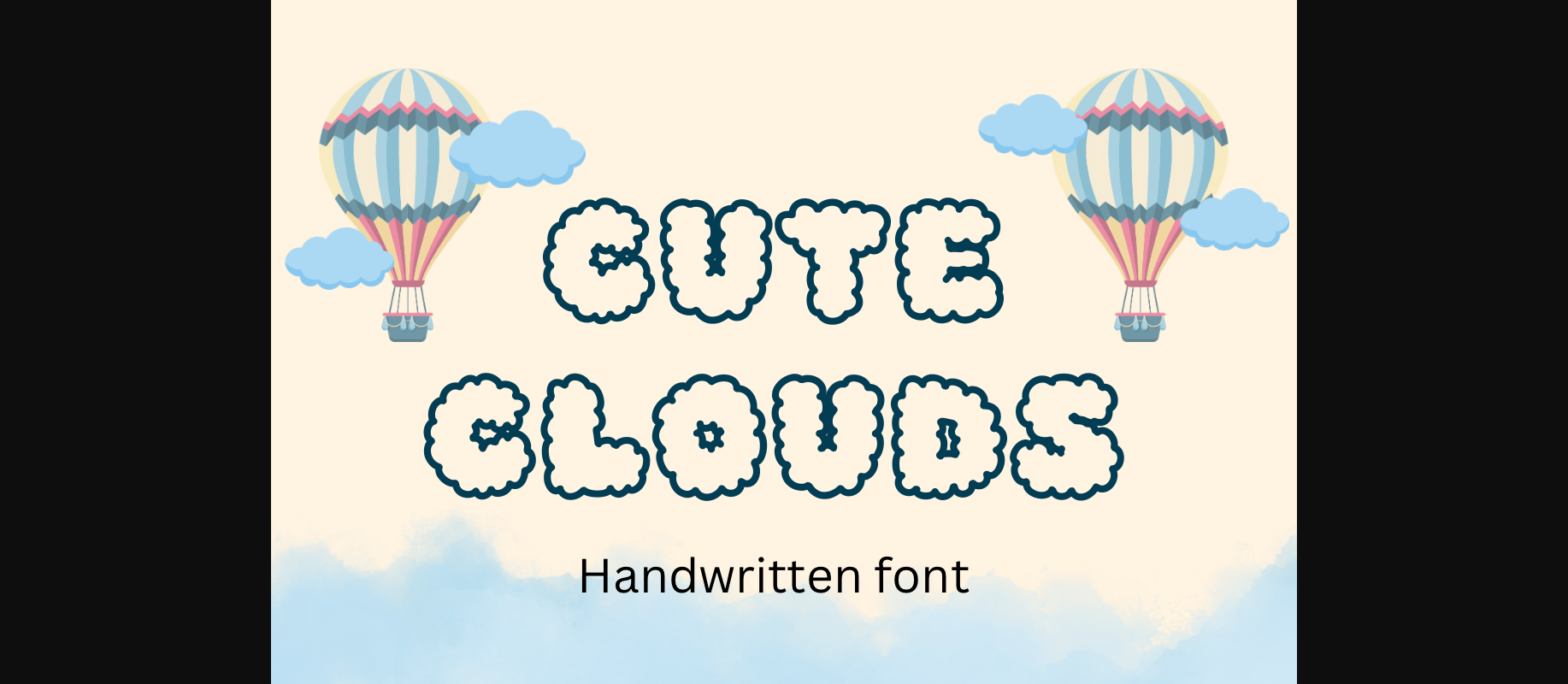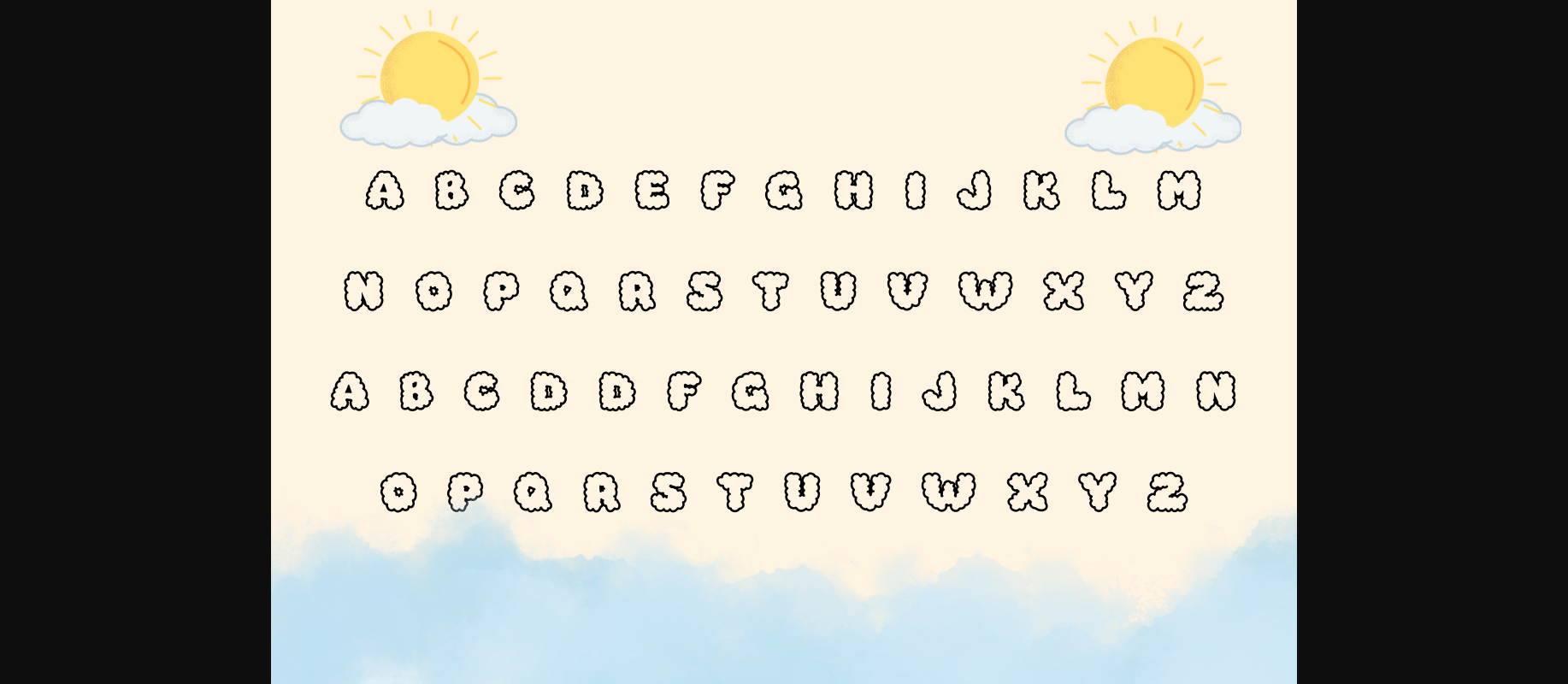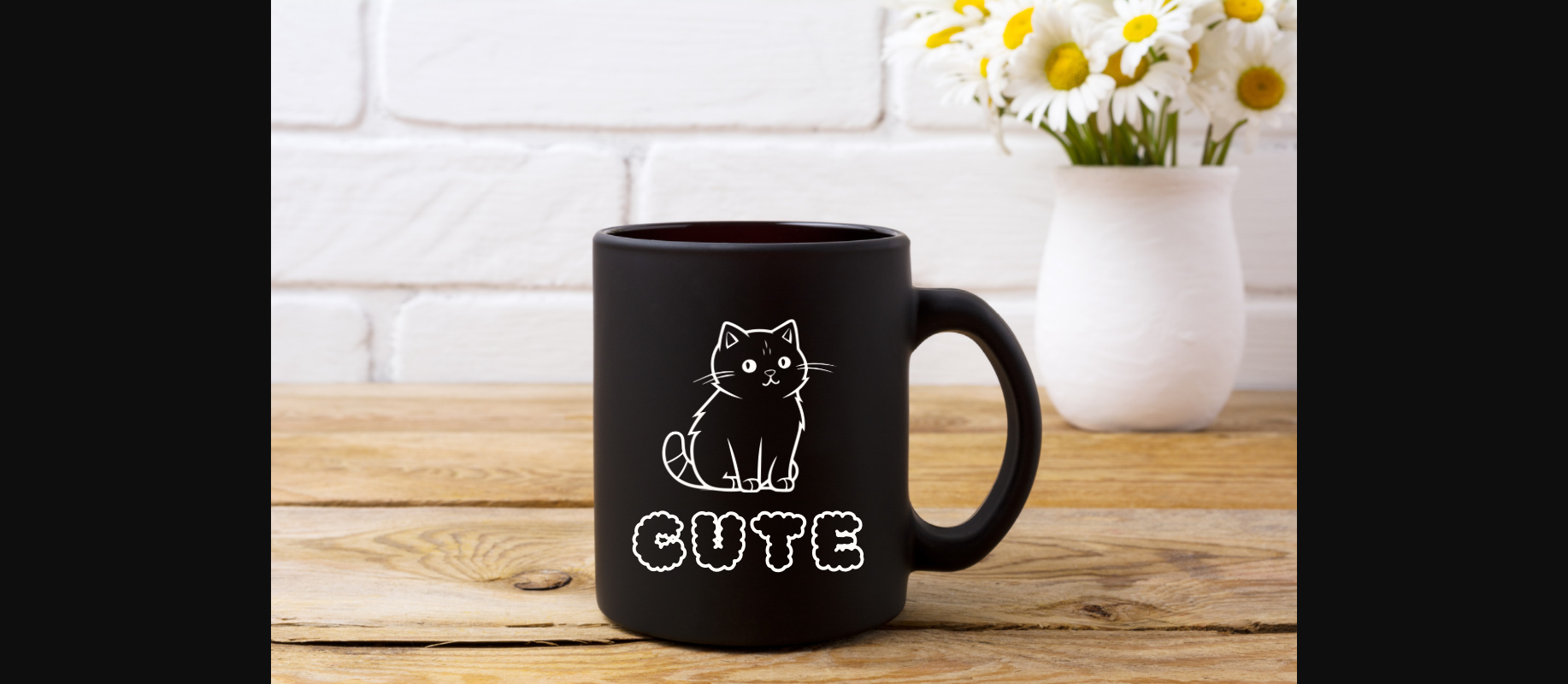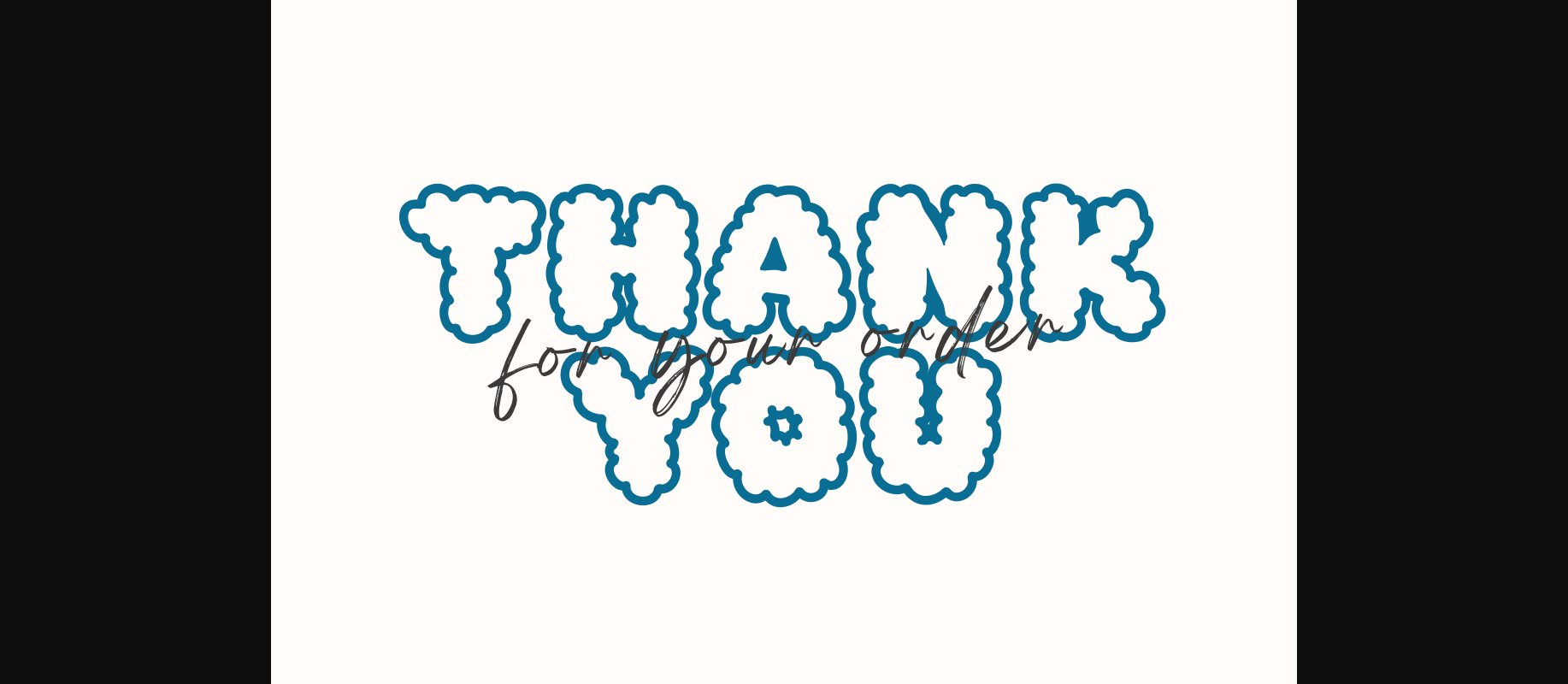
Cute Clouds Font
About Cute Clouds Font
Cute Clouds is an adorable font with letters that look soft and puffy, just like clouds. It brings a playful and fluffy feel to your text, perfect for projects that need a touch of sweetness. Whether you’re designing for children’s books, posters, or greeting cards, Cute Clouds adds a charming and whimsical vibe. Let your words float on these delightful clouds and bring smiles to everyone who sees them!